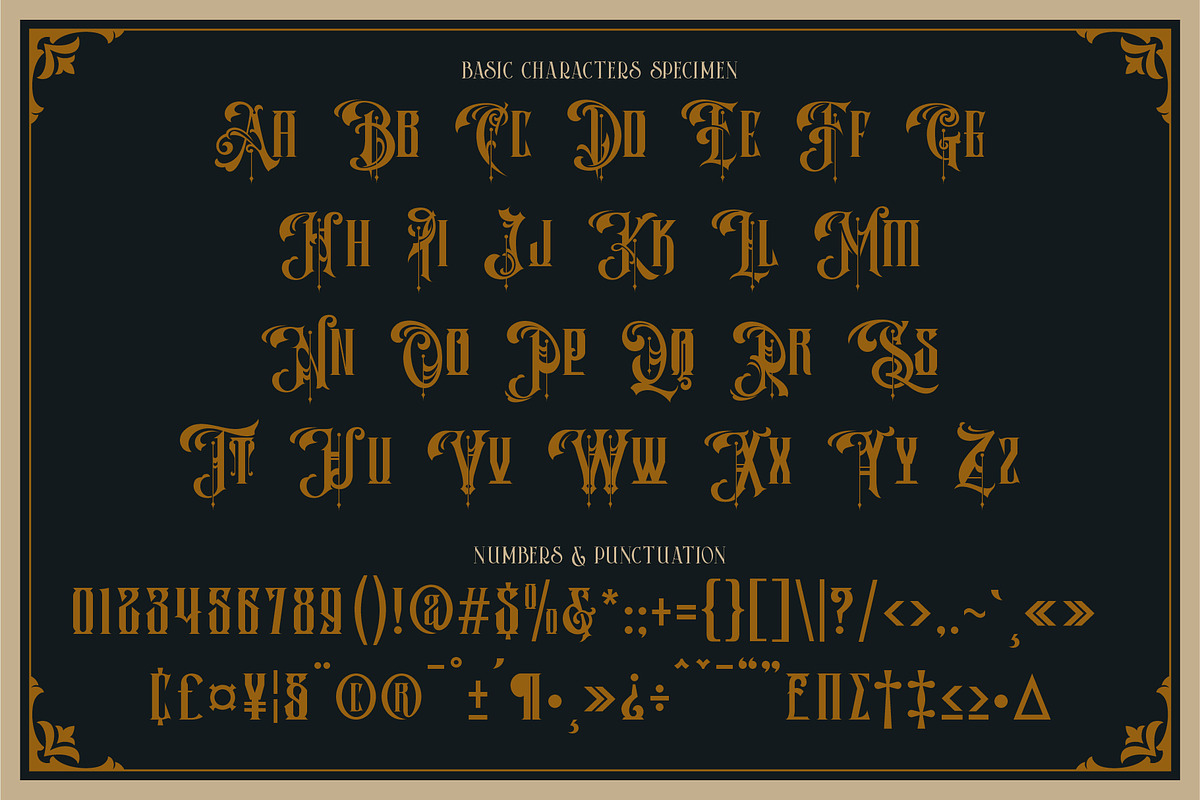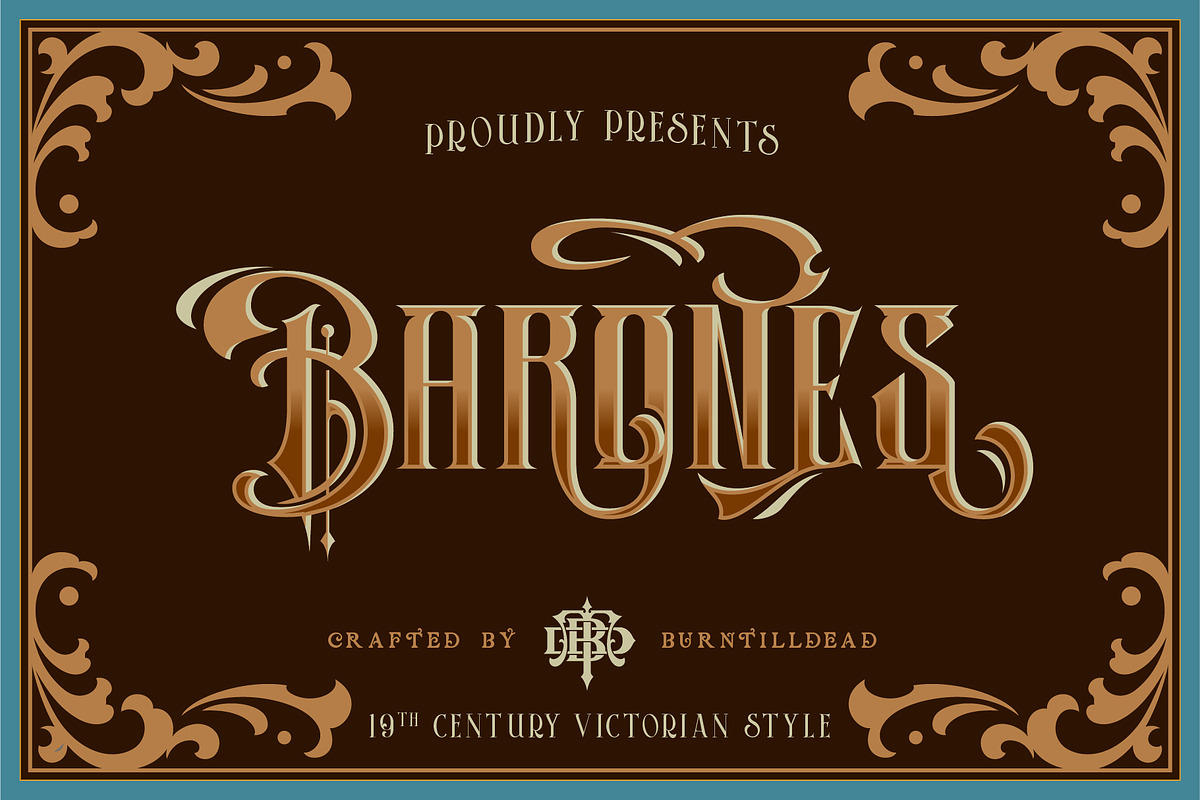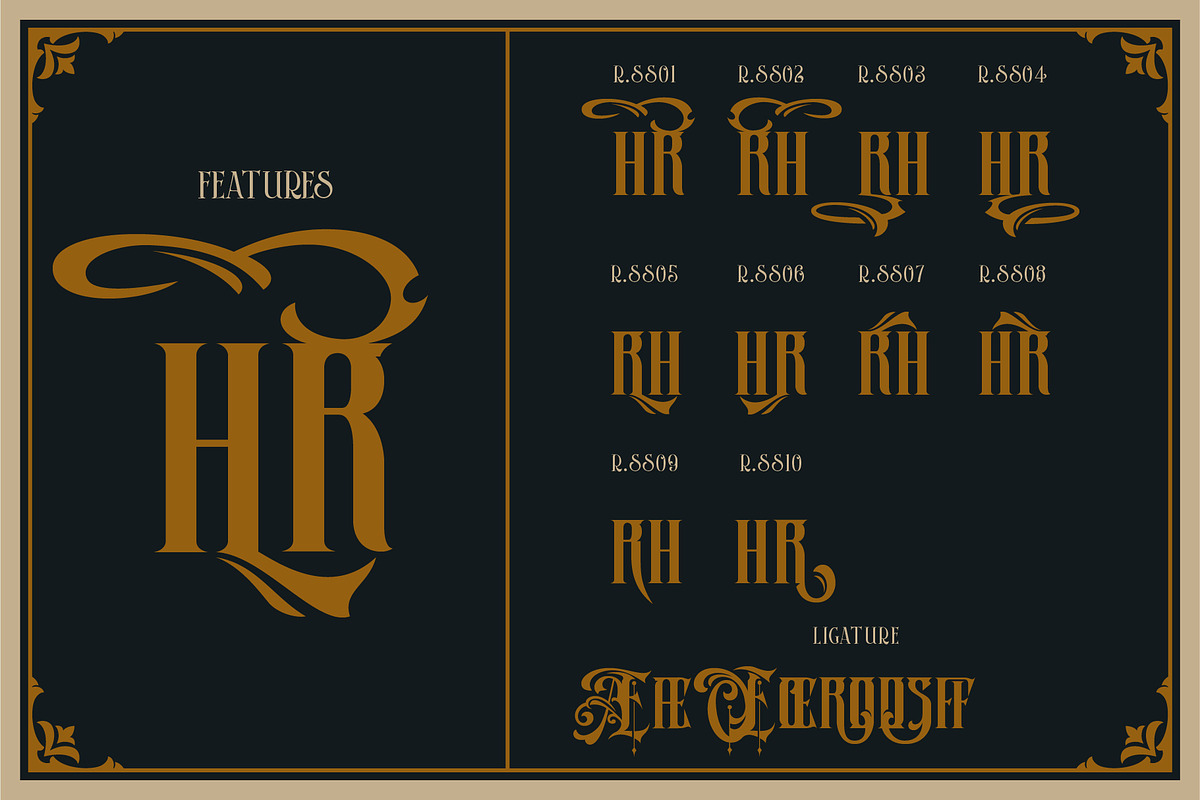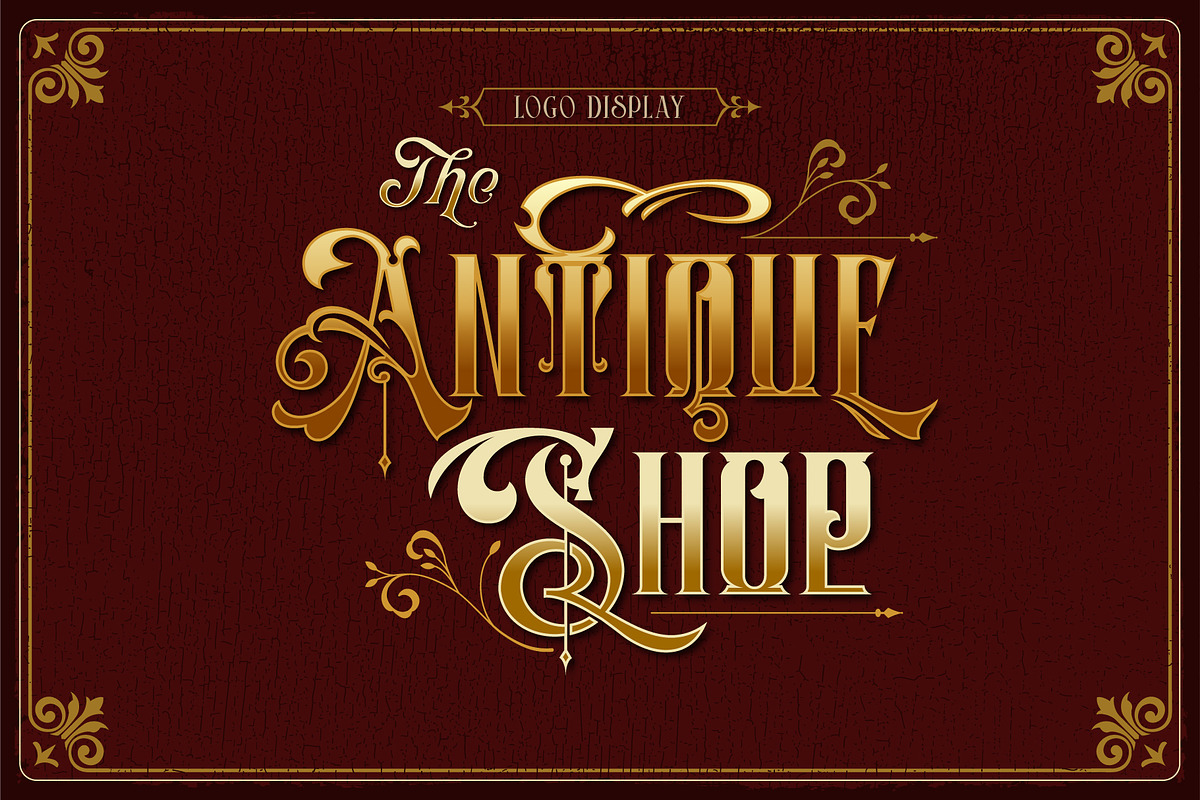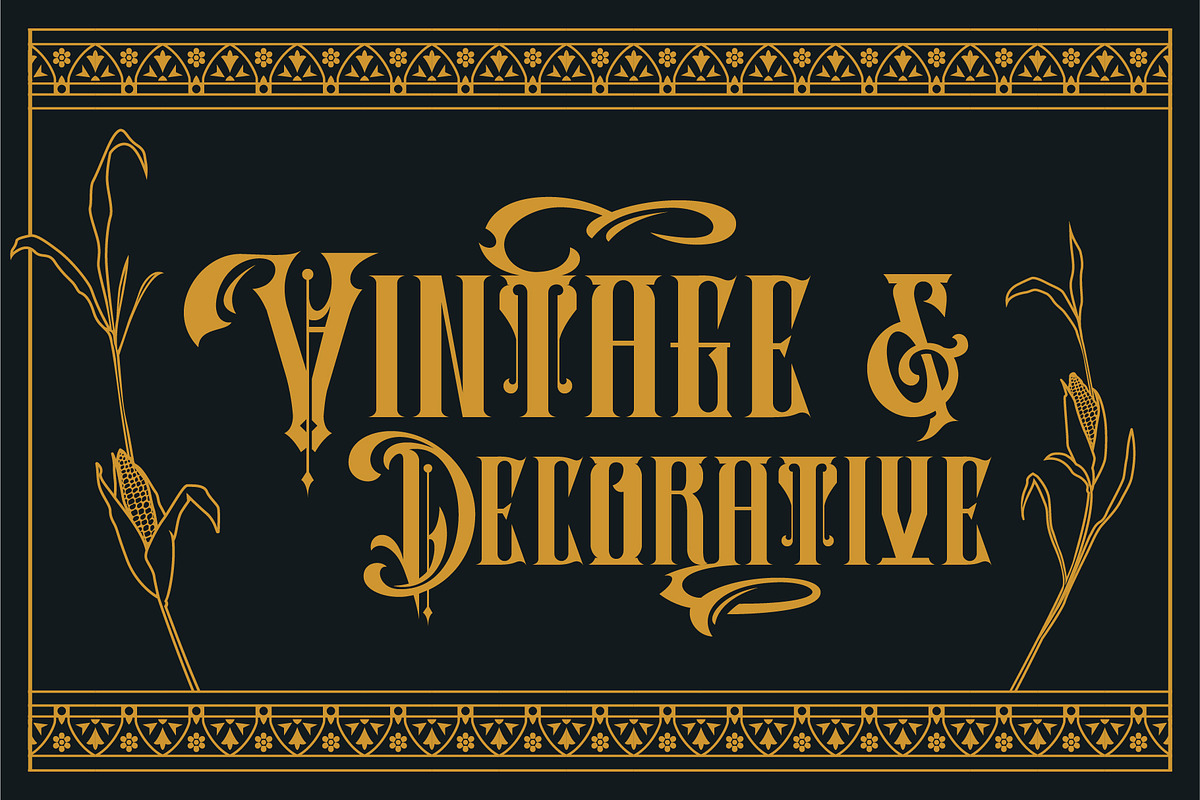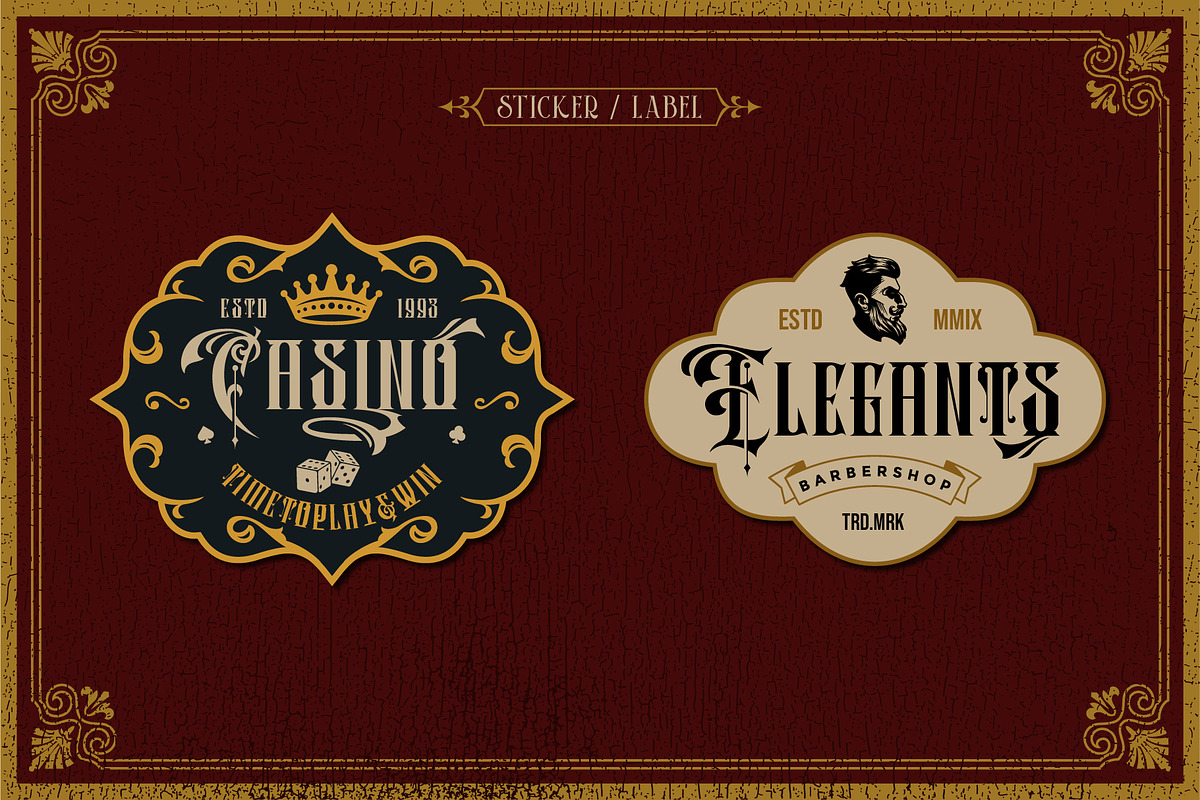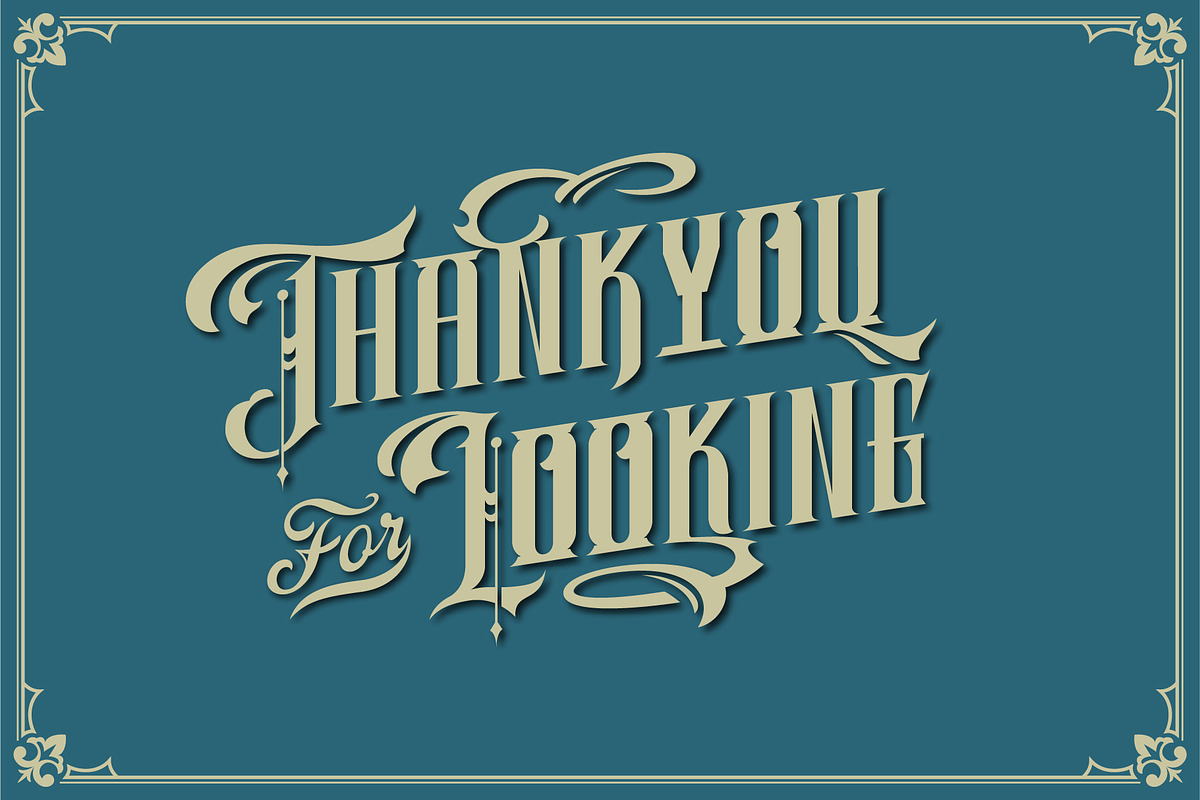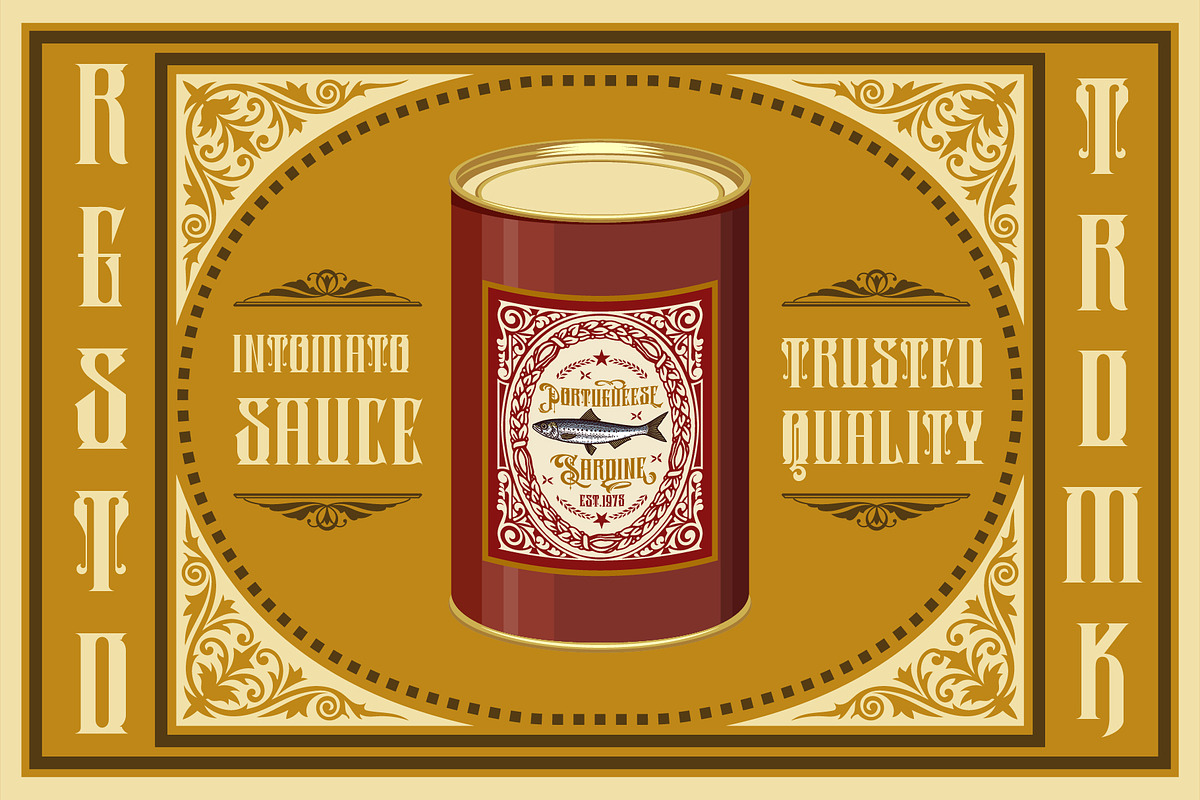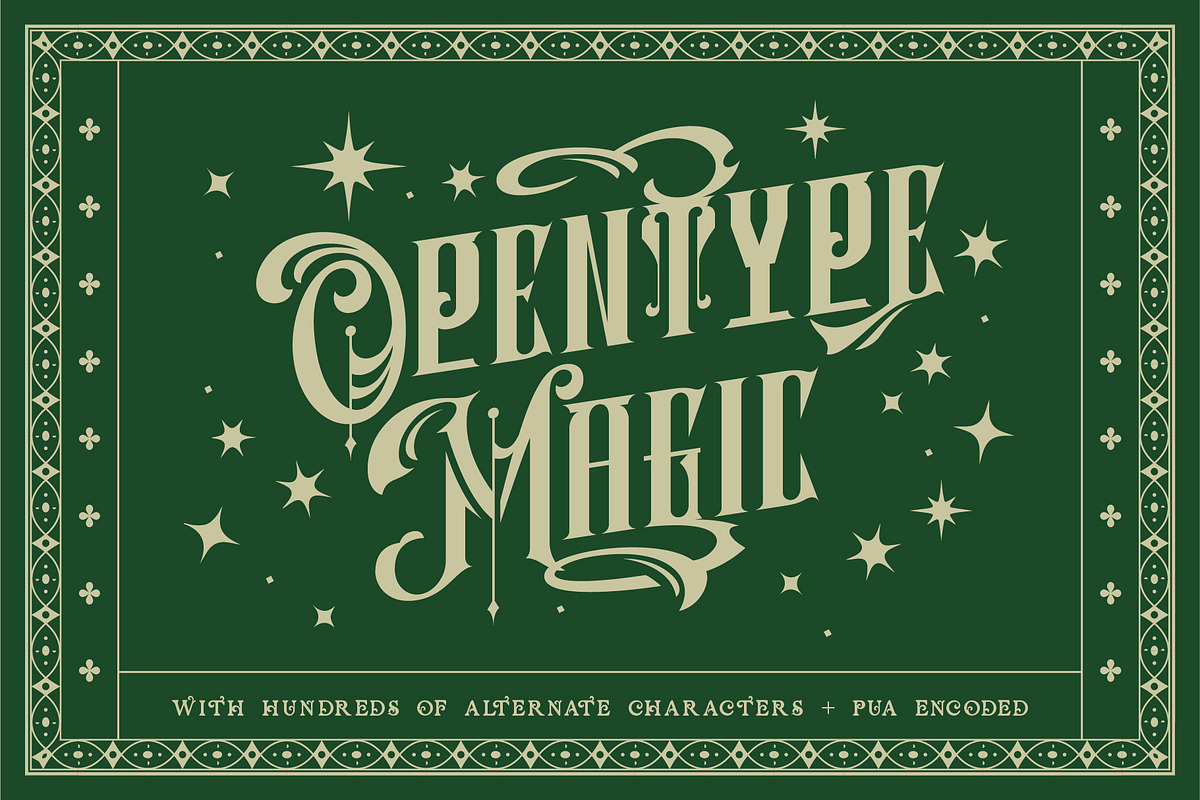
Barones
Introducing**“Barones”** the classic Victorian typeface. Inspired by the label & store sign from the late 1800's and early 1900's. Set included two styles; Barones-Regular & Barones-Italic.
The font really bring a good statement for your logo design and can be the image of a design.
Arterium font is very unique and easy to apply to any media; t-shirts, posters, sign boards, letterhead and social media needs.
A-Z Character Set
a-z Characters set
Numerals & Punctuations (OpenType Standard)
Ligature
Stylistic Alternates (01-10)